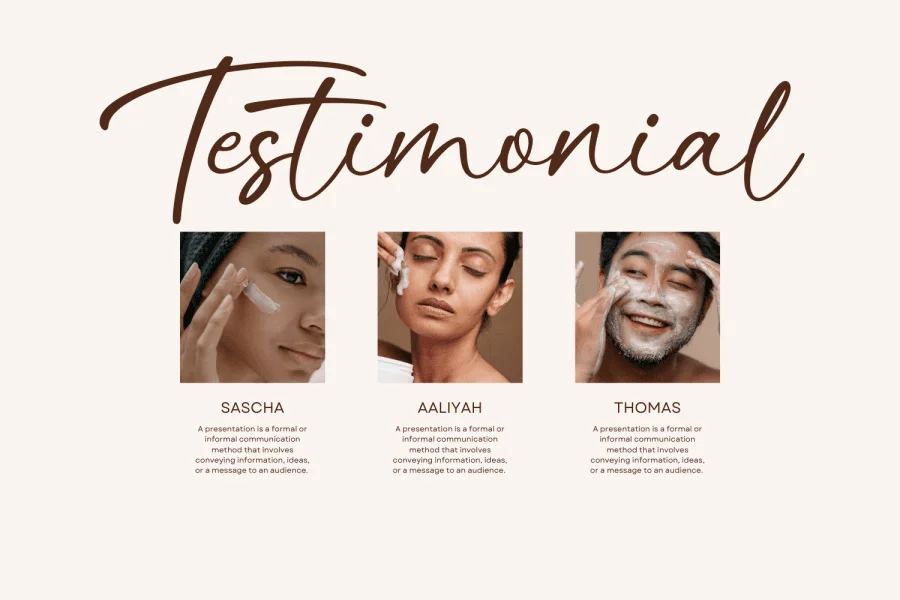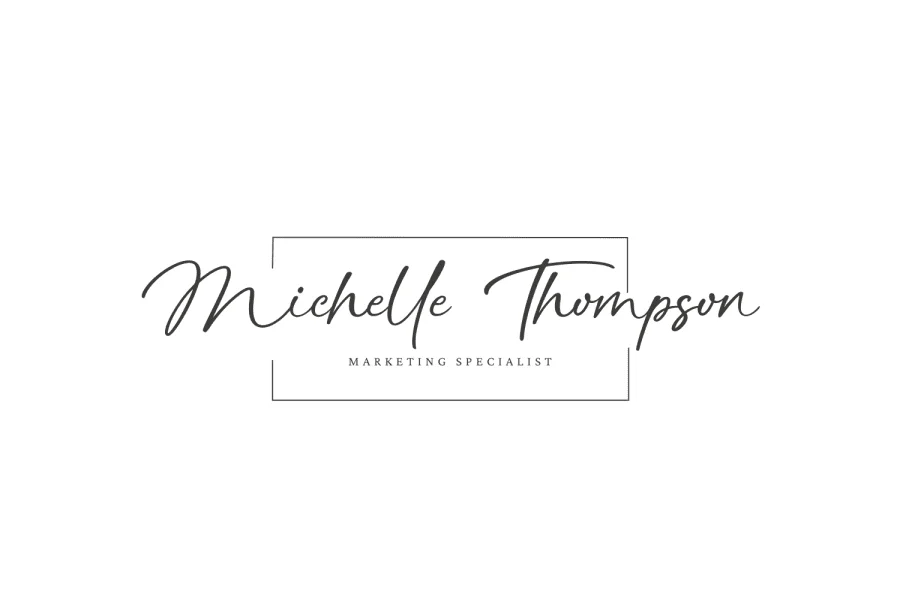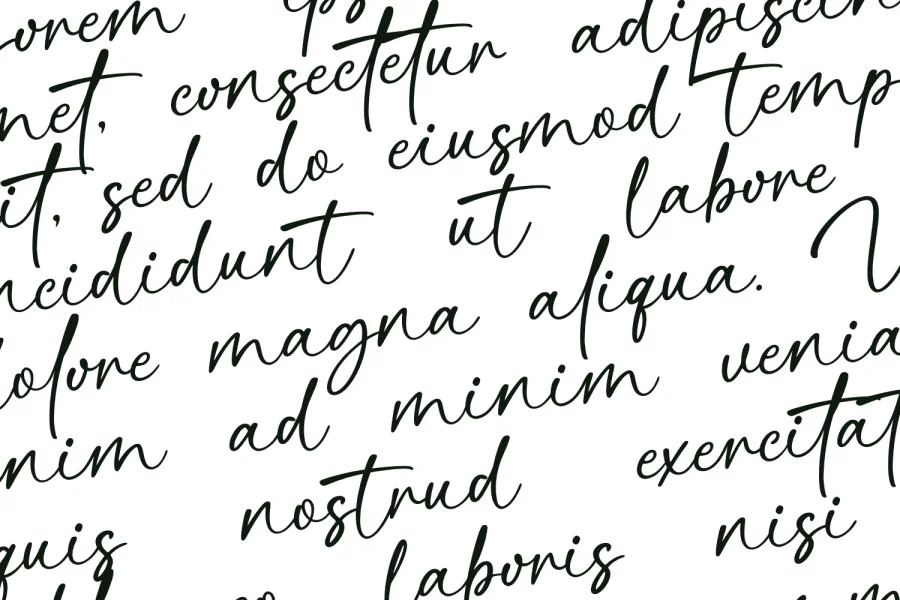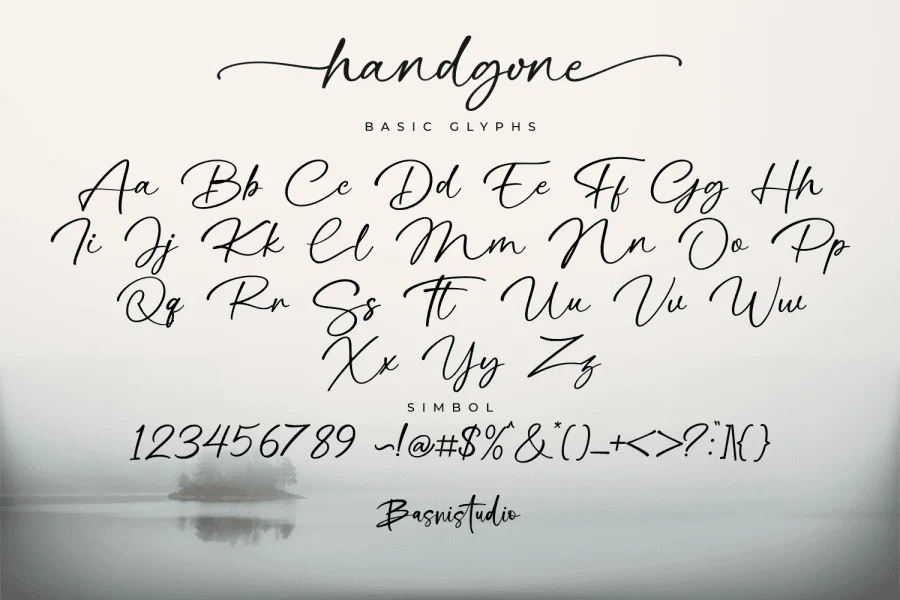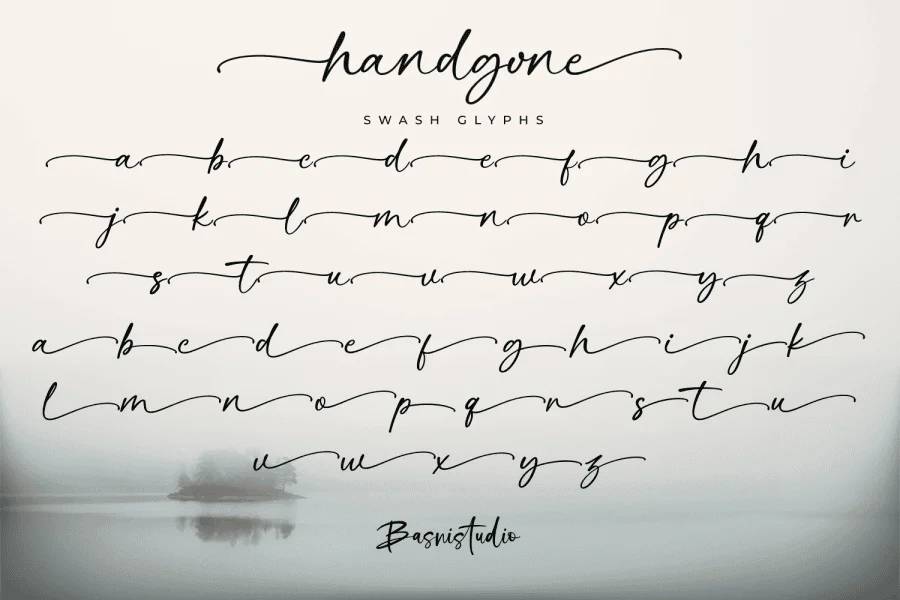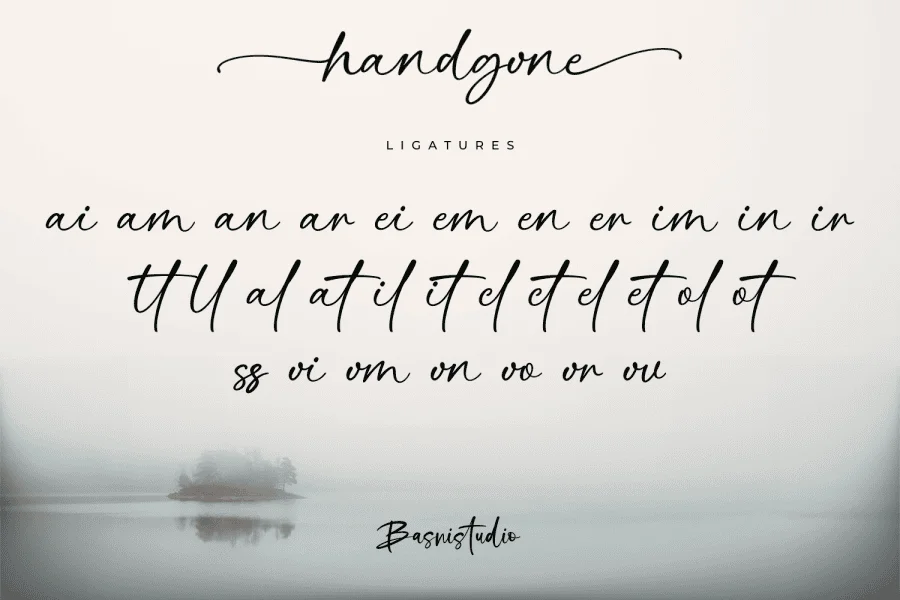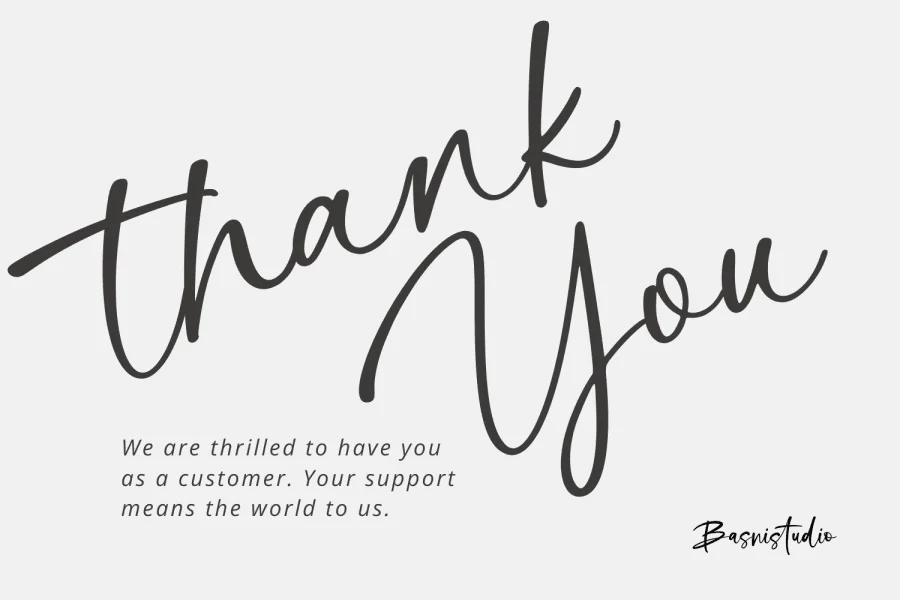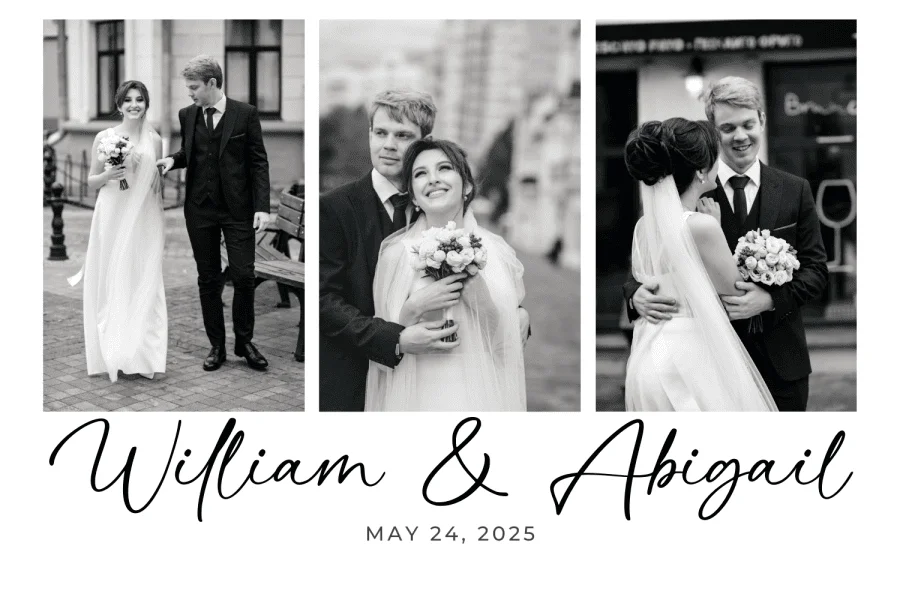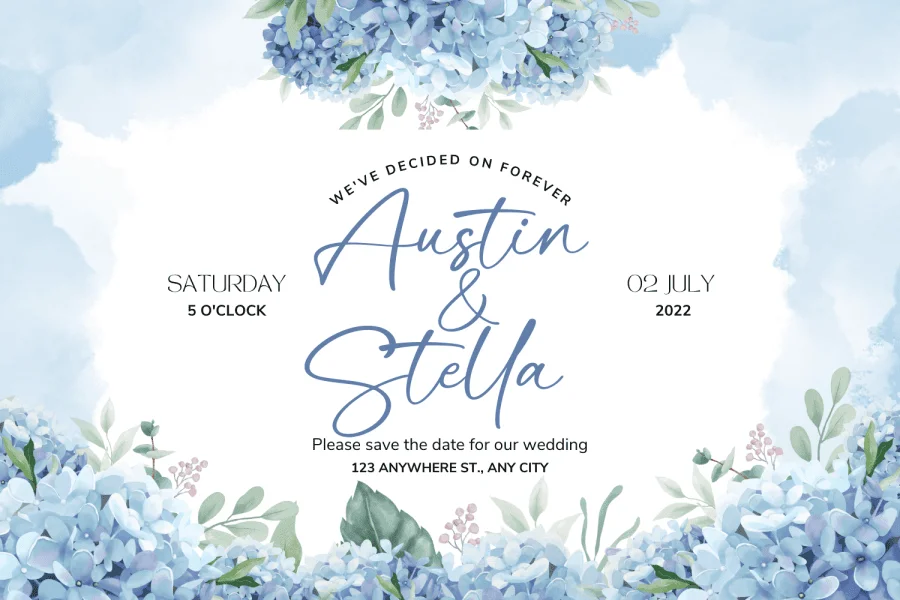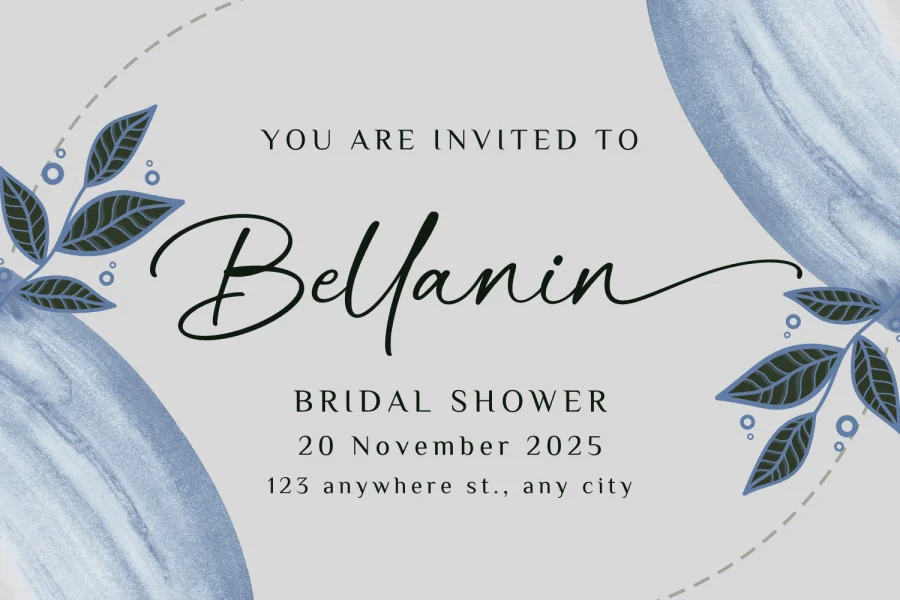
INTRODUCING Handgone a Casual Handwritten Font
handgone is a casual handwritten font that flows effortlessly, just like a love letter written by hand.